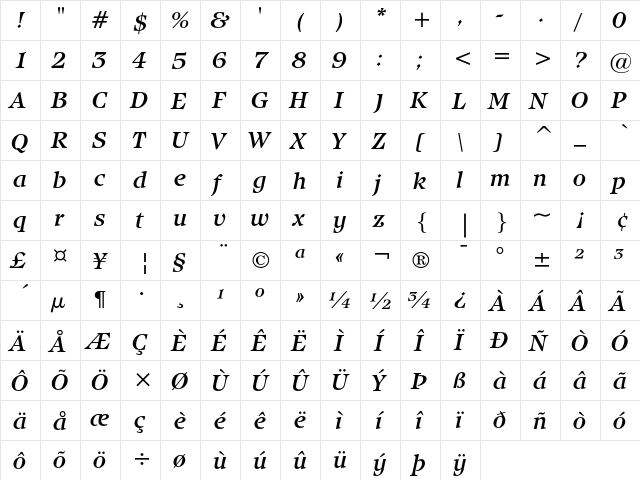
ITC Isbell Medium Italic
Design Context for ITC Isbell Typeface
ITC Isbell offers clean, dependable letterforms without strong stylistic allegiance, making it a practical choice for designers who need flexibility. Its italic angle brings a sense of urgency and motion to the letterforms.
Pro Tip: Use ITC Isbell for emphasis, pull quotes, and subheadings where its slanted energy can add rhythm to the layout.